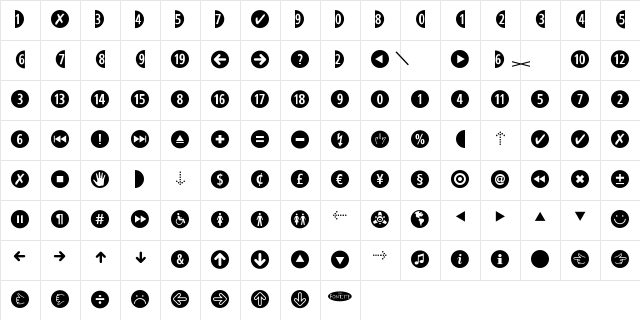
CombiNumerals Bold
Foundry: The FontSite
Designer: Sean Cavanaugh
Design Context for CombiNumerals
CombiNumerals is a composed and adaptable typeface that performs quietly and consistently across a wide range of design contexts. Its bold stroke weight gives it real presence on the page.